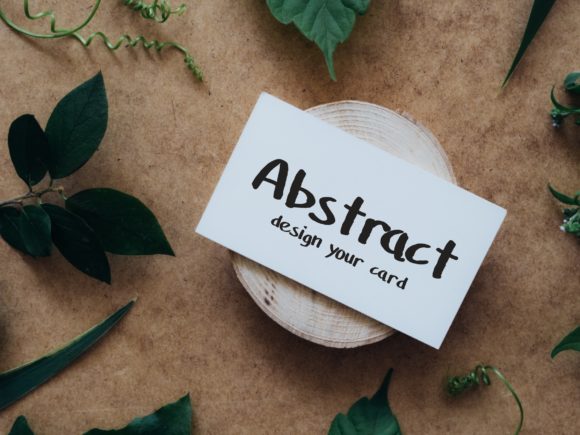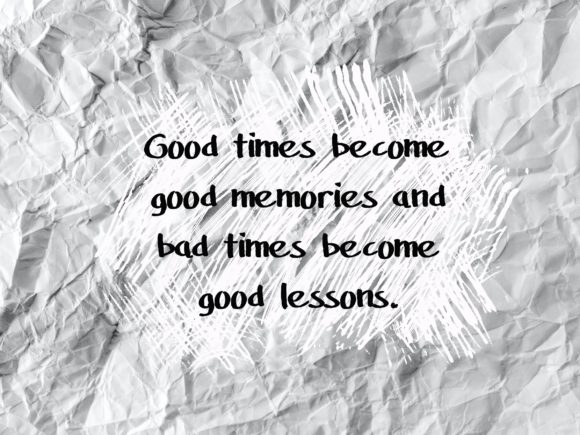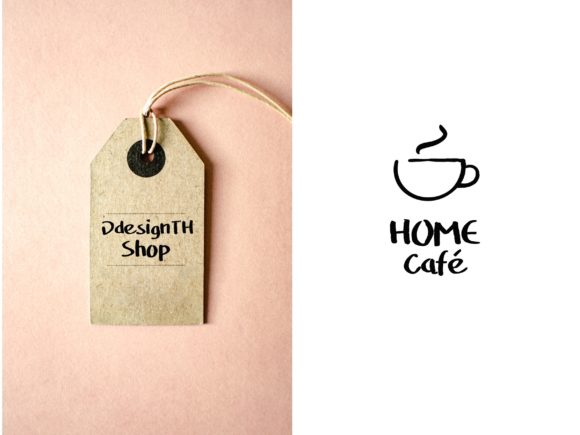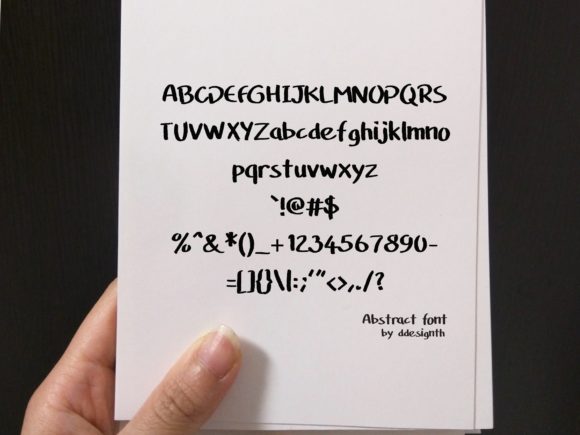
Introduction to Abstract Font
As a designer, there’s no thrill quite like the moment when a creative project comes together – the perfect combination of color, shape, and typography. It’s that instant when you know you’ve created something special, and it’s all thanks to the right design resources. One such resource that can elevate your design game is the Abstract Font, a modern and stylish handwritten font that’s perfect for making a statement.
| 👤 Author | DdesignTH |
Whether you’re working on a logo, card, or any other project that requires impressive typography, the Abstract Font is an invaluable asset. Its balanced and varied design makes it a versatile choice for designers, allowing you to add a touch of personality to your work. And the best part? It’s available for free download, so you can experiment with it without breaking the bank.
Key Features of Abstract Font
- Unique abstract font with a transparent background, perfect for layered designs.
- Designed to be highly customizable, with advanced features like ligatures and swashes, making it a valuable design resource.
Honest Review: Abstract Font
As a designer, I’m always on the lookout for high-quality design resources to elevate my creative projects. The Abstract Font caught my eye, and I decided to give it a try.
What works well: ✨ The font is extremely versatile and can be used for a wide range of design projects, from web design to print materials. It’s also available for free download, which is a huge plus. The font is highly customizable, allowing me to adjust the size, color, and opacity to fit my design needs.
- Transparent background, making it easy to use on any design surface
- Perfect for creative projects requiring a unique and modern touch
However, there are some limitations: ⚠️ The font is not suitable for small text sizes, as it can become difficult to read. Additionally, the font doesn’t include a wide range of characters, which can be limiting for certain design projects.
Overall, I’m impressed with the Abstract Font. While it may not be perfect, it’s a great addition to any designer’s toolkit. With a little creativity, I’ve been able to use it to create some truly unique and eye-catching designs.
Abstract Font
The Abstract Font is a unique and versatile design resource ideal for creative projects. It’s available for free download and features a high-quality, transparent background.
Tips for Getting the Most Out of Abstract Font
Use the Abstract Font to add a creative touch to your designs. Experiment with different font sizes, colors, and arrangements to achieve a unique look. You can also combine the Abstract Font with other design elements to create a visually appealing composition.
The Abstract Font is suitable for a wide range of creative projects, including graphic design, digital art, and web design. You can use it to create eye-catching logos, posters, and social media graphics, or to add a creative touch to your presentations and documents.